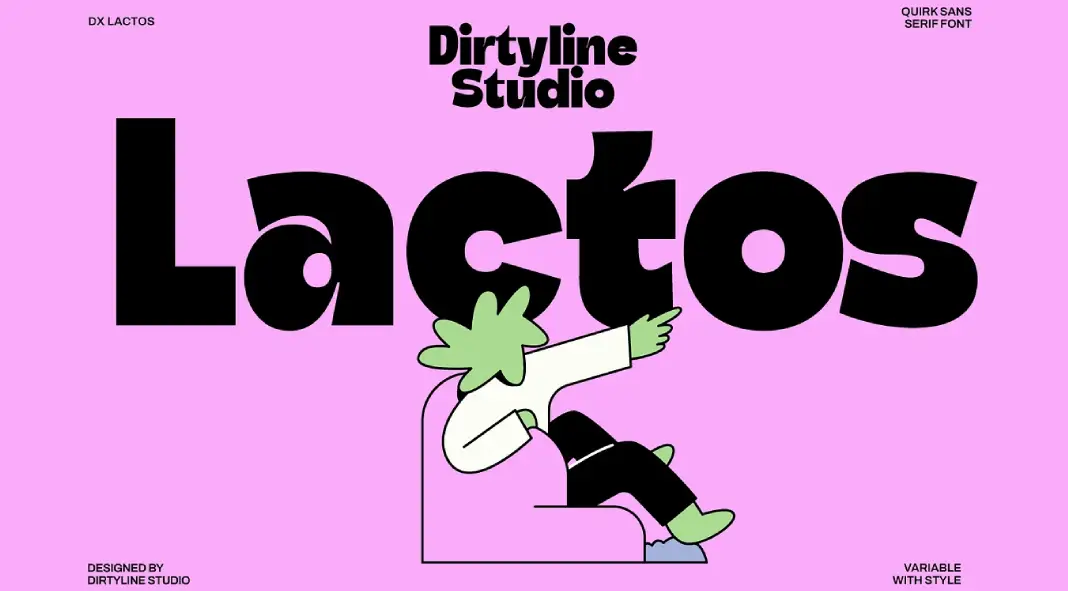
Bold, Playful, and Perfectly Versatile, That’s Dx Lactos
Dx Lactos by Dirtyline Studio is a typography masterpiece that captures attention with its striking boldness and variable width. Designed with a quirky yet refined aesthetic, this font is tailored for projects where grabbing attention is essential. Its unique characteristics make it an excellent choice for modern design projects, blending fun with functionality.
A Bold Statement in Design
Dx Lactos is more than just a font; it’s a statement. Its robust structure and variable width add depth and visual interest to any design. The font’s exaggerated proportions and playful curves create excitement, making it particularly suitable for entertainment-centric projects like movie posters, series promotions, or event branding.
Dx Lactos Font by Dirtyline Studio
The font’s bold style creates a visual hierarchy that commands attention, whether used in titles, headlines, or digital banners. It exudes confidence and ensures the message stands out in crowded visual spaces.
Perfect for Entertainment and Promotion
Dx Lactos thrives in the entertainment industry, where visuals need to captivate at first glance. Its dynamic and quirky style aligns perfectly with the branding requirements of streaming platforms, film promotions, and social media campaigns.
The font’s expanded, unconventional letterforms make it ideal for high-impact projects, especially those catering to young and creative audiences. Its ability to adapt seamlessly to digital and print media ensures it remains versatile across various platforms.
Optimized for Digital Excellence
As a web font, Dx Lactos is a powerhouse for online applications. It excels in delivering eye-catching H1, H2, and H3 titles, enhancing readability while maintaining a strong visual presence. The font’s clean yet bold design ensures it remains legible, even at smaller sizes, making it a valuable asset for websites, blogs, and e-commerce platforms.
Dx Lactos also performs exceptionally well in social media graphics. Whether on Instagram stories, Facebook posts, or Pinterest pins, its lively appearance draws the viewer’s eye and ensures messages are memorable.
Versatility Meets Playfulness
One of Dx Lactos’s standout features is its versatility. Despite its bold appearance, the font maintains a level of refinement that balances playfulness with professionalism. It transitions effortlessly from playful posters to sophisticated branding materials.
Dx Lactos supports a range of languages, enhancing its usability for global campaigns. Its well-crafted letterforms and unique variable width ensure that every character feels purposeful, whether it’s used in bold headlines or decorative accents.
Ideal Applications
Dx Lactos is a font that thrives in creative and high-energy environments. Here are some of its best applications:
• Promotional Materials: Perfect for posters, banners, and flyers that need to leave a lasting impact.
• Web Design: A fantastic choice for striking headlines and engaging hero text on websites.
• Social Media: Adds personality and flair to digital graphics, stories, and advertisements.
• Entertainment Branding: Seamlessly fits the aesthetic demands of movie and series promotions.
Dx Lactos by Dirtyline Studio pushes the boundaries of traditional typography with its bold and playful design. Its variable width, strong visual presence, and adaptability make it an essential tool for modern designers. Whether used in digital or print media, this font injects energy and personality into every project.
For those seeking to captivate audiences and leave a lasting impression, Dx Lactos is a powerful choice that combines creativity with functionality.